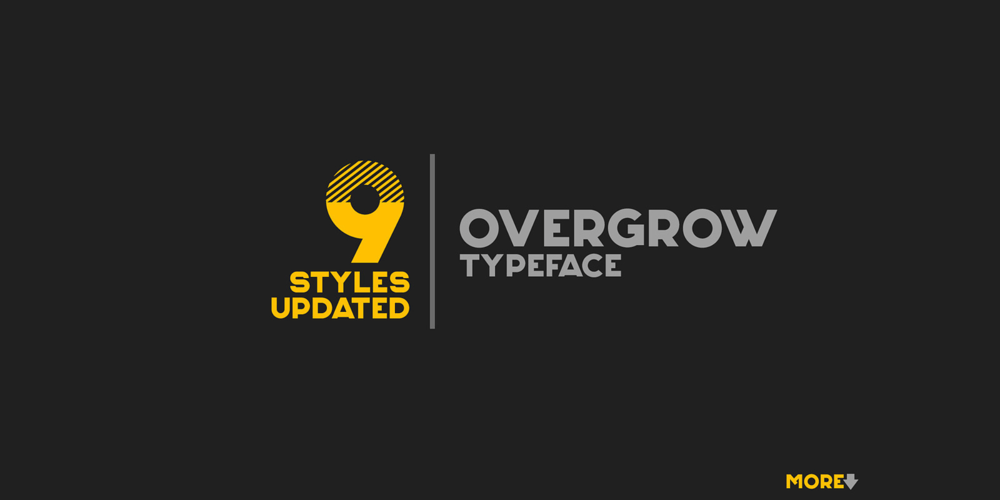
Overgrow Font Family was designed by Olivia Love and published by Only Fonts. Overgrow contains 9 styles and family package options. Overgrow is a striking uppercase typeface designed to bring impact and creativity to your designs. Featuring 9 unique font styles, it allows for endless possibilities in branding, headlines, apparel, and more. With OpenType features like stylistic alternates and ligatures, this font provides flexibility and uniqueness to suit any creative project.Perfect for logos, book covers, album covers, posters, game titles, invitations, flyers, product packaging, and other printed or digital designs, Overgrow ensures your work stands out with a bold, edgy aesthetic.✿ What’s Included: Overgrow Regular – The core design with a bold and impactful look. Overgrow Cut Off – A stylish variation with unique letter cut-offs. Overgrow Outline – A clean outlined version for modern appeal. Overgrow Rough – A textured, distressed style for a rugged feel. Overgrow Rounded – Smooth, softened edges for a friendly look. Overgrow Rugged – A bold, industrial look with added texture. Overgrow Rusty – A vintage-inspired worn-out effect. Overgrow Striped – A creative striped pattern for unique designs. Overgrow Half Striped – A partial-stripe effect for added versatility. ✿ Key Features: Uppercase Letters Only – A bold, impactful display typeface. 9 Unique Font Styles – Versatile options to enhance your designs. OpenType Features – Stylistic alternates and ligatures included. Multilingual Support – Covers multiple languages for global use. ✿ Perfect For: Logos & Branding: Create strong and unforgettable brand identities. Headlines & Titles: Grab attention in magazines, book covers, and posters. Apparel & Merchandise: Make standout prints for clothing and accessories. Gaming & Entertainment: Ideal for game titles and dynamic visuals. Marketing & Packaging: Add bold character to products and advertisements. If you have any ideas or suggestions, feel free to reach out—we’re always looking to make Overgrow even better. Thank you for your support! 🌿✨